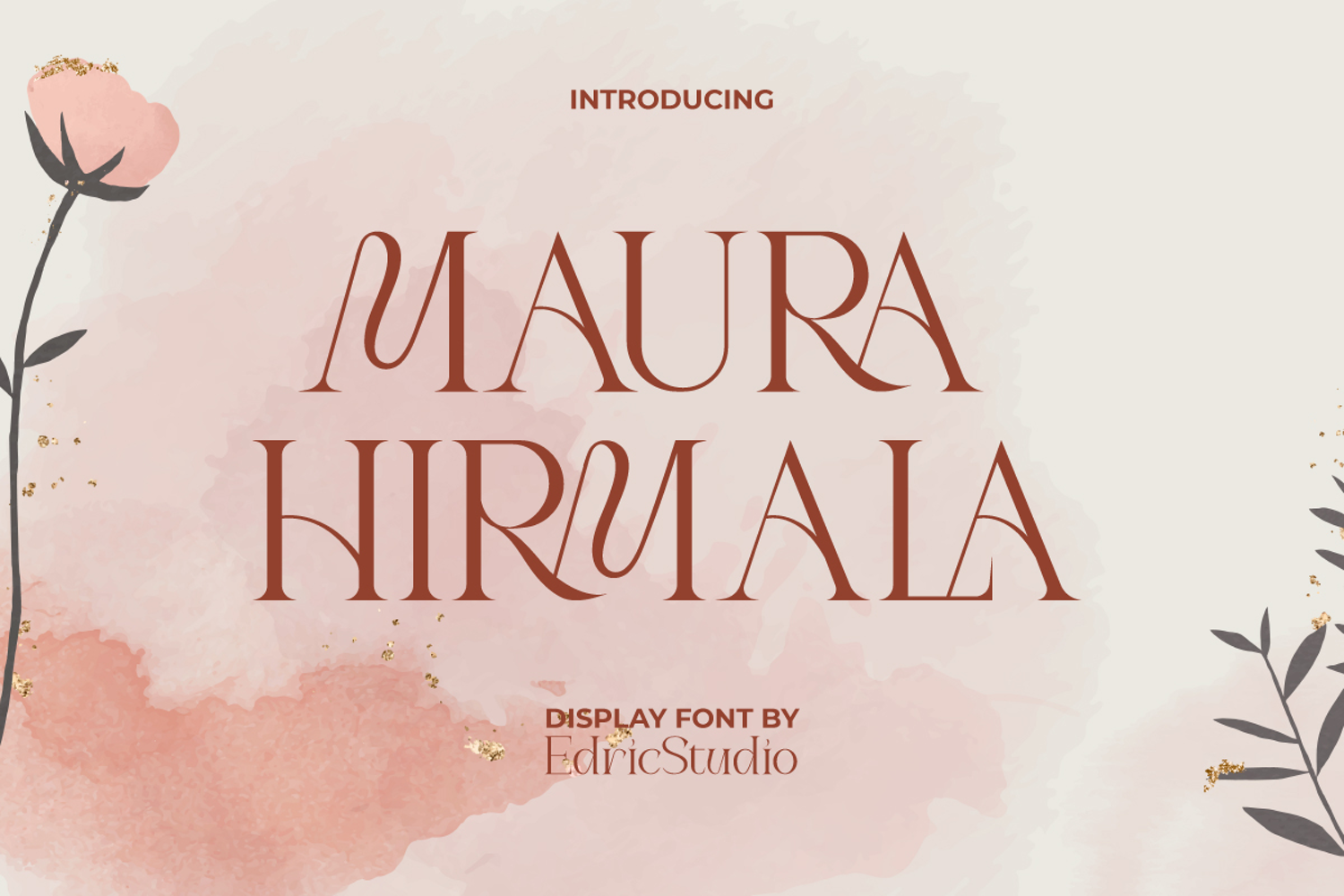
Maura Hirmala Font
Maura Hirmala Font is a beautiful font display with flower petals ornament that have elegant curves. Enhance your typography with its radiant beauty in any setting. This would be perfect for app view, blogs, brand logo, brochure, cover, greeting card, headlines, logos, magazines, packaging design, signage, sticker, watermarks, website, wedding invitation, or even longer text perhaps like quotes.
Maura Hirmala Font covers the basic characters of Uppercase and Lowercase Letters, Numbers, Punctuation and Symbols. It also includes optional Ligatures to increase the appeal of the font. This typeface combines the sophistication of contemporary design with a feminine aesthetic, making it ideal for a variety of creative projects. It’s perfect for apparel, beauty clinic, content creator, cosmetic, event/celebration, fashion, florist, makeup artist, pastry chef, skincare, spa salon, etc.